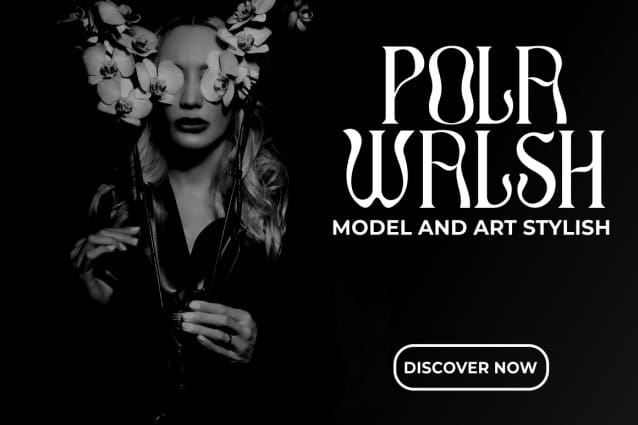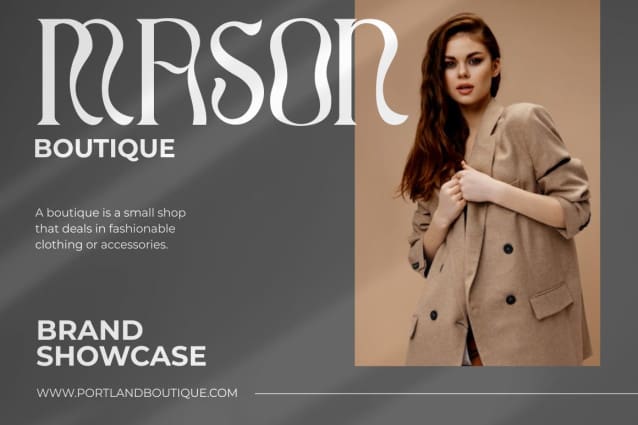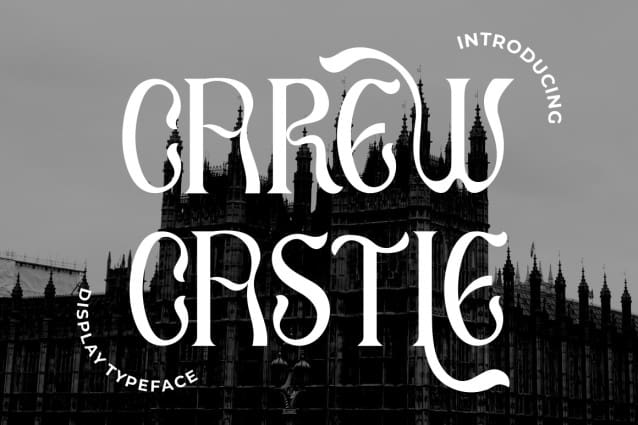
Carew Castle Font
Carew Castle Font, a bold and elegant display typeface font that will make your designs stand out. Inspired by medieval architecture and the intricate details of Gothic lettering, Carew Castle features unique and ornate letterforms that will bring a touch of sophistication to any design project.
With its wide range of alternate glyphs and ligatures, Carew Castle offers plenty of creative possibilities. Use it for branding projects, editorial design, packaging, posters, and much more. Its elegant and timeless design makes it perfect for creating logos, headlines, and titles that demand attention.
Carew Castle comes in three weights – regular, bold, and black – making it versatile for various design purposes. Its extended character set supports a variety of languages, making it a great choice for international projects.